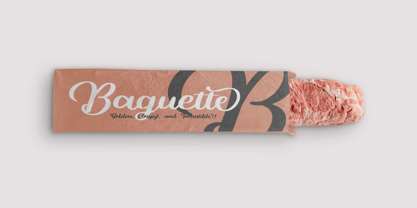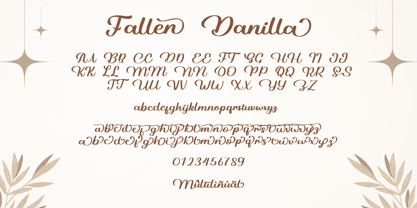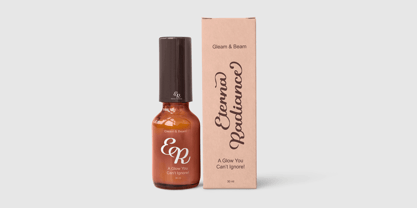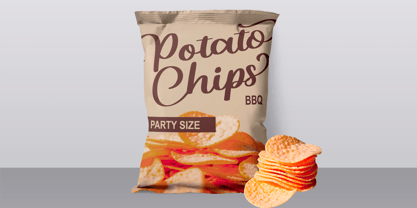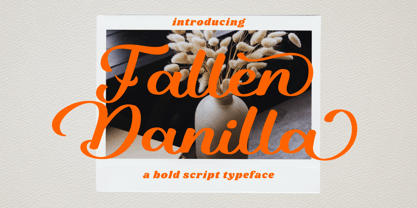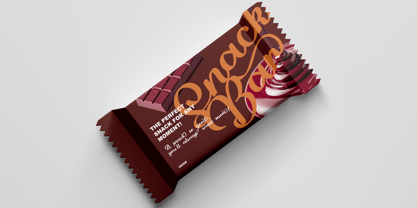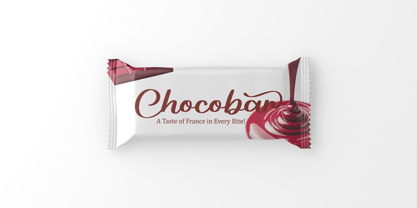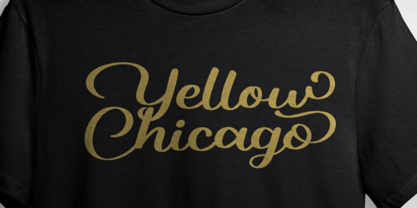
Fallen Danilla
The Fallen Danilla Font Family was designed by Dian Haniffan Hadi and published by Beary. Fallen Danilla contains 1 styles.
Fallen Danilla Font is a bold script typeface that exudes elegance and strong character. With its beautiful alternative glyphs, this font offers design flexibility that allows for boundless creativity. Each character is meticulously crafted, ensuring smooth and harmonious flow, making it perfect for projects that require a touch of luxury and personality.
Fallen Danilla combines boldness and sophistication, making it ideal for a wide range of design applications. The font not only captures attention but also remains highly readable, whether in large or small sizes. With its distinctive style, Fallen Danilla brings a modern yet timeless and classic feel.
Perfect for:
• Food & Beverage Branding
• Beach/Summer-themed Businesses
• Fashion & Lifestyle Branding
• Social Media Content
• Product Packaging Design
• Logo & Brand Identity
• Resort & Hospitality Branding
Features:
• Elegant Alternative Glyphs
• OpenType Features
• Multilingual Support
• PUA Encoded Characters
• Optimized Kerning
Transform your designs with Fallen Danilla Font – where boldness meets elegance in every stroke. Whether you're crafting an exclusive café brand identity or designing lifestyle products, Fallen Danilla delivers the perfect blend of strength and sophistication that will make your projects stand out.